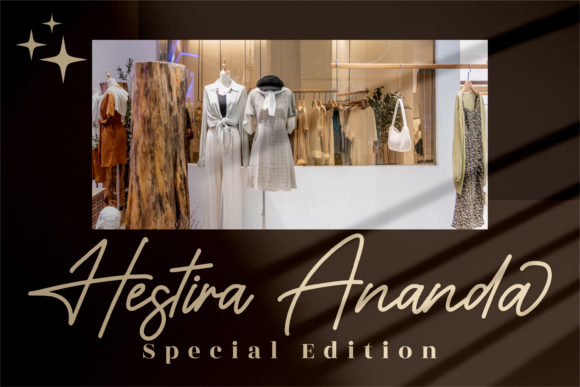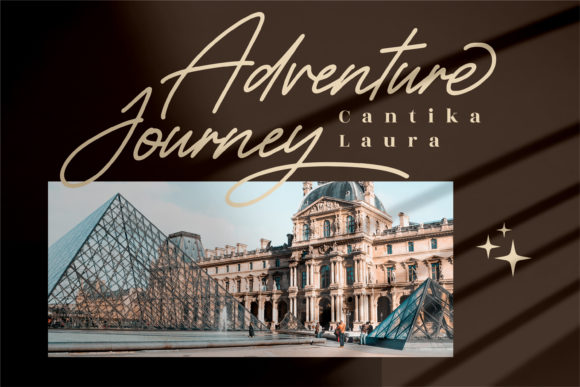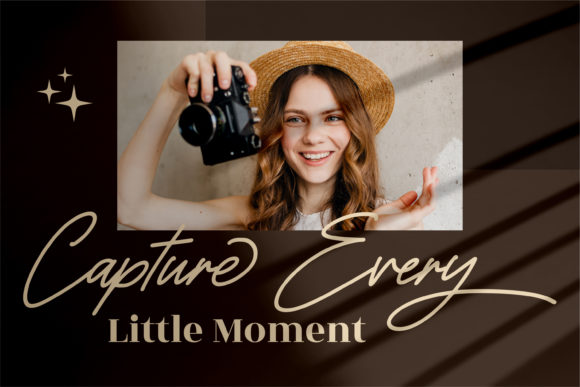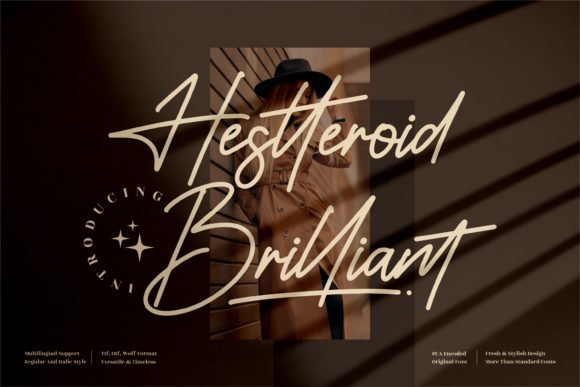
Introduction to Hestteroid Brilliant Font
Hestteroid Brilliant is a stylish and delicate script font.
It has a clean, thin and smooth vibe and it will be a hit for any design that you want to add it to This font is PUA encoded which means you can access all of the glyphs and swashes with ease.
Key Features of Hestteroid Brilliant Font
Why Choose Hestteroid Brilliant Font?
Hestteroid Brilliant Font offers exceptional quality and versatility, making it a valuable addition to your design toolkit. Whether you’re creating for personal projects or commercial use, Hestteroid Brilliant Font delivers professional results.